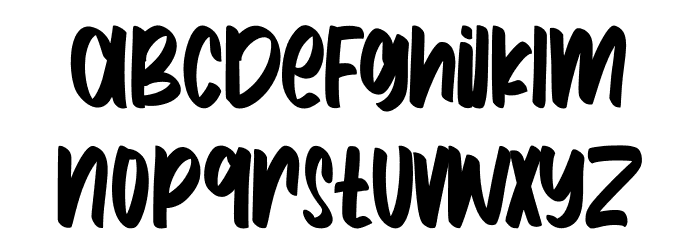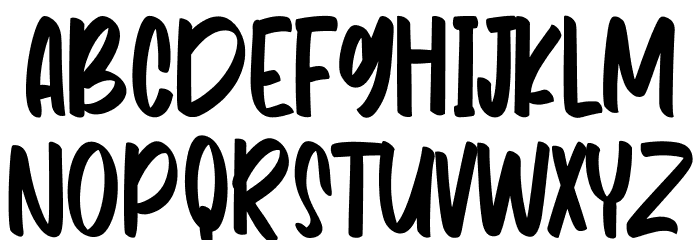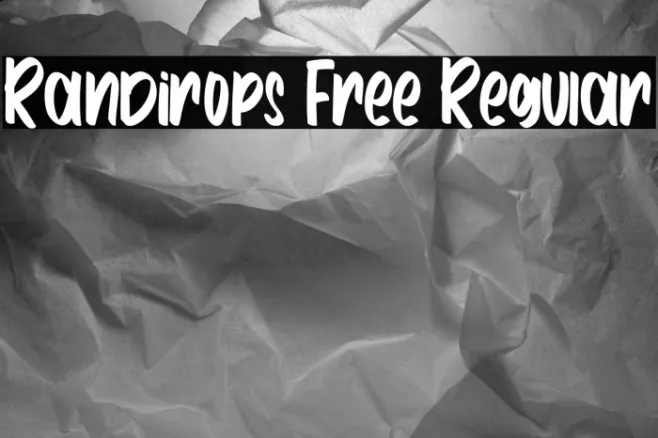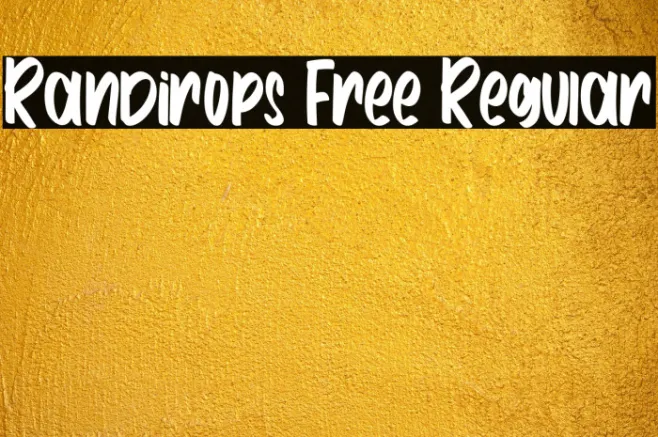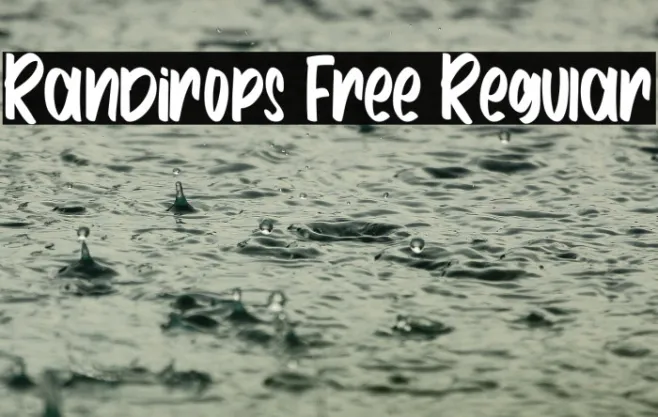
Randirops Free Regular Font
This font features a bold and playful handwritten style, characterized by its thick strokes and rounded edges. The letters are slightly irregular, giving it a casual and friendly appearance. Its high contrast between thick and thin strokes adds to its dynamic and energetic feel. The uppercase and lowercase letters maintain a consistent style, making it versatile for various design needs. The font's unique personality makes it stand out, ideal for projects that require a touch of creativity and fun.
A bold, playful handwritten font with thick strokes and rounded edges.
- Proposed Projects: Ideal for greeting cards, posters, social media graphics, and children's book covers.
- Overall Style: Playful, Casual